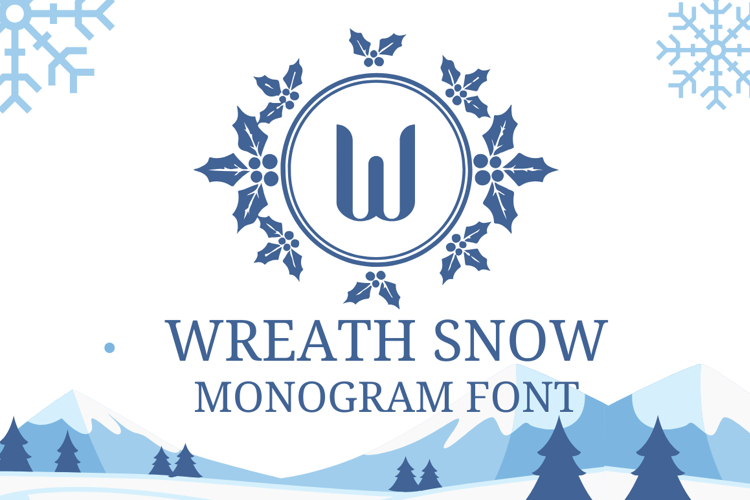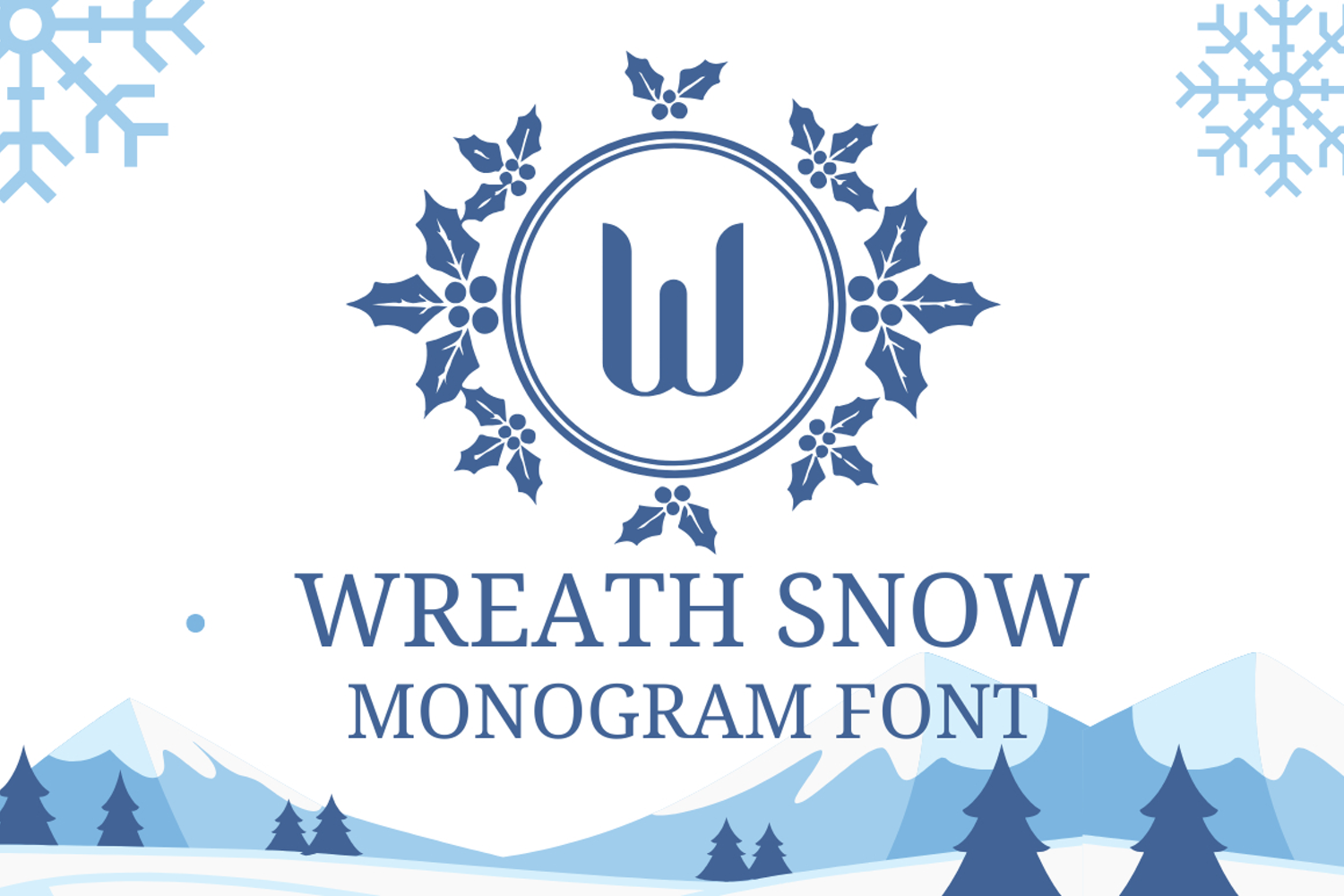
Introducing Wreath Snow — a refined winter monogram font that instantly turns any letter into a snowy wreath emblem. Each glyph places an initial inside a holly wreath circle, perfect for elegant holiday sets and quick branding accents.
Type once and get a finished winter badge. Use the empty frame for custom icons or layered layouts to build coordinated seasonal packs in minutes.